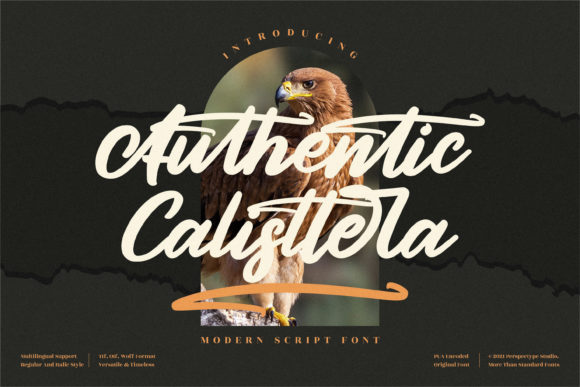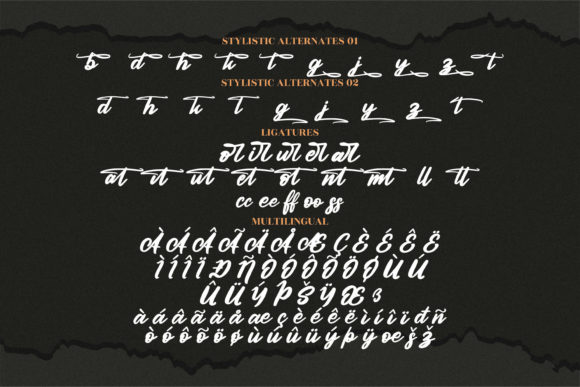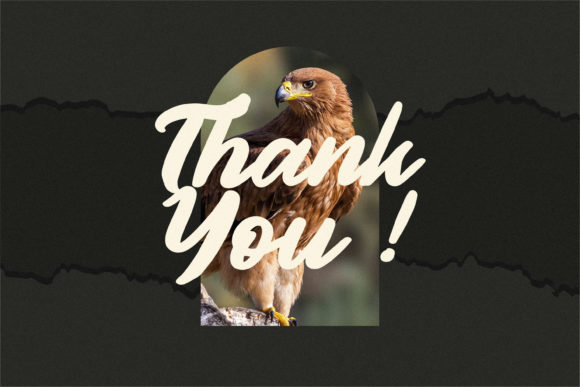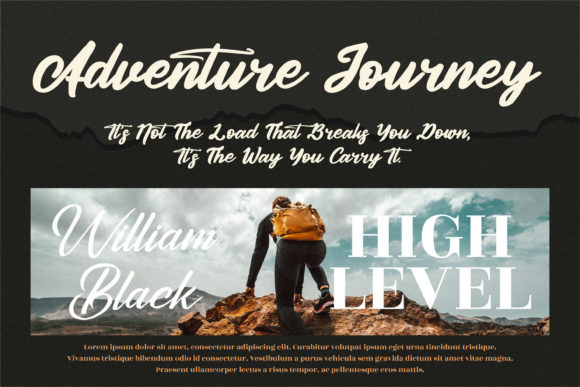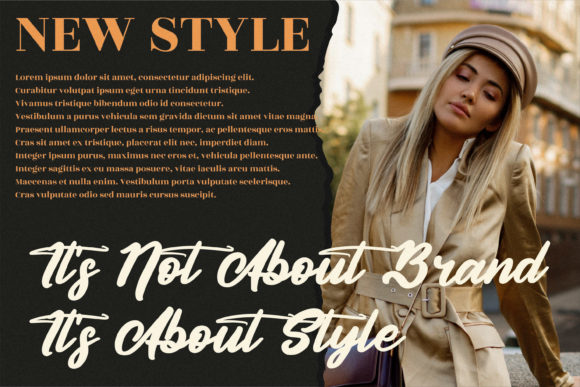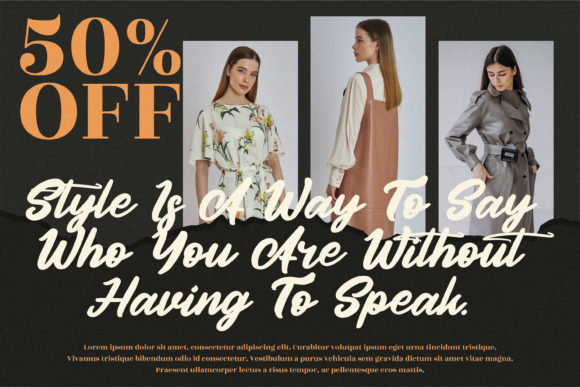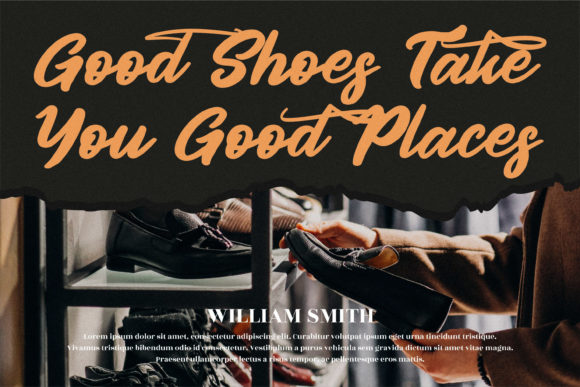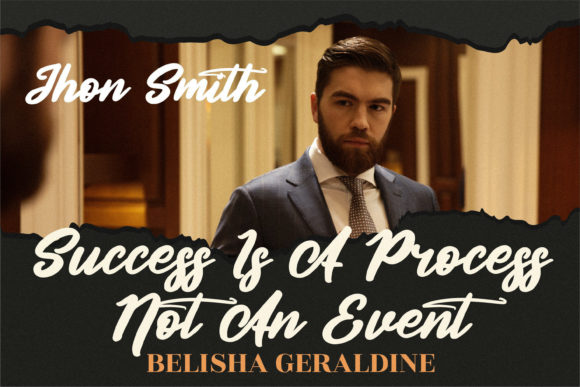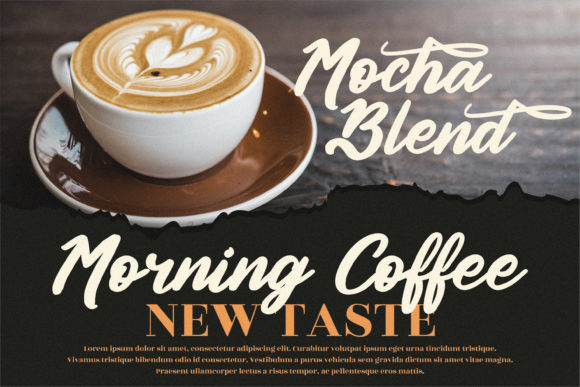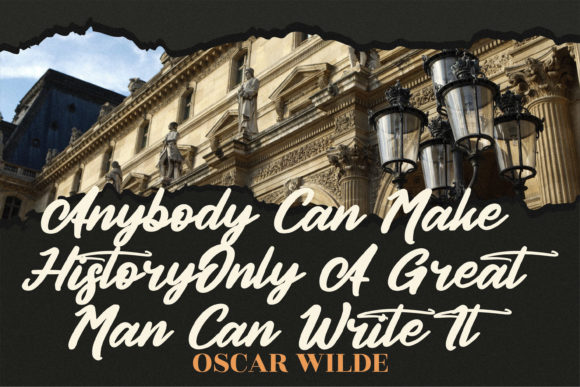
Authentic Calisttera Font
About Authentic Calisttera Font
Authentic Calisttera is a stunning and bold brushed script font that brings a modern and personalized touch to your designs. With its strong and expressive letterforms, Authentic Calisttera is the perfect choice for a wide range of design projects, including wedding invitations, thank you cards, logos, greeting cards, and more.
The beauty of Authentic Calisttera lies in its unique and contemporary style. The brush strokes are bold and dynamic, giving the font a sense of energy and personality. Whether you’re designing a romantic wedding invitation or a stylish logo, Authentic Calisttera adds a modern and personalized flair to your creations.
One of the standout features of Authentic Calisttera is its versatility. It adapts effortlessly to various design contexts, making it suitable for different projects and themes. Its bold and expressive nature makes it perfect for creating eye-catching headlines, while its legibility ensures that your message is conveyed effectively.
Authentic Calisttera is also PUA encoded, which means you have easy access to all of the glyphs and swashes. This feature allows you to unleash your creativity and customize your designs with decorative elements, alternate characters, and ligatures. Whether you want to add flourishes, swashes, or unique letter combinations, Authentic Calisttera provides you with the tools to create unique and stunning compositions.
In summary, Authentic Calisttera is a modern and bold brushed script font that brings a personalized touch to your designs. With its PUA encoding, you have access to a wide range of glyphs and swashes, allowing for endless creative possibilities. Whether you’re designing wedding materials, logos, or greeting cards, Authentic Calisttera adds a contemporary and personalized touch that captivates your audience.